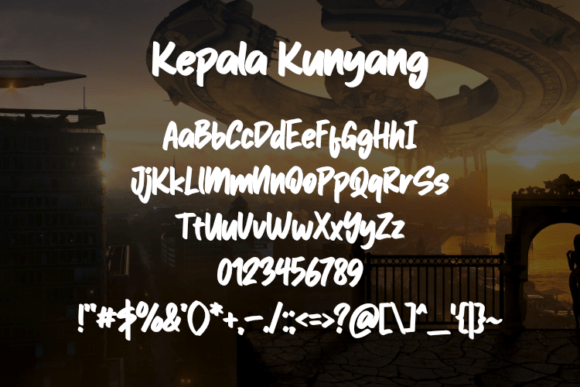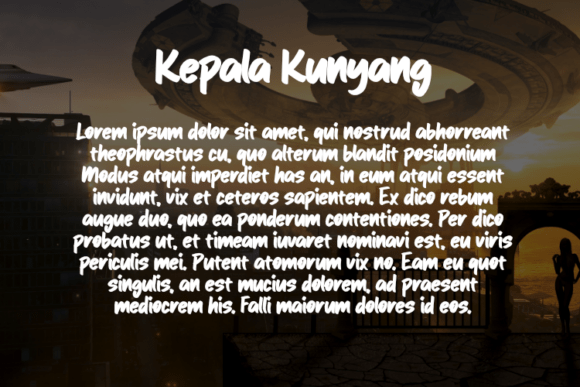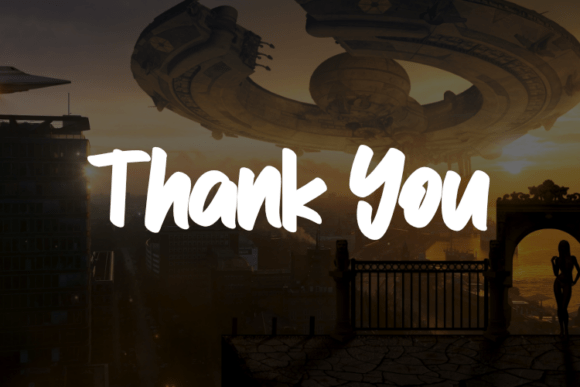
Introduction to Kepala Kunyang Font
Have you ever stared at a blank canvas, struggling to find the perfect font to bring your creative project to life? The thrill of brainstorming, the agony of searching for the right typeface – we’ve all been there. But what if you stumbled upon a font that not only elevates your designs but also gives them a unique edge?
Enter the Kepala Kunyang Font, a high-quality design resource that’s about to revolutionize the way you approach your creative projects. With its transparent background and seamless integration with design software, this font is a game-changer for designers of all levels.
What sets Kepala Kunyang Font apart is its ability to effortlessly adapt to any design, from clothing and t-shirts to more complex projects. Whether you’re a seasoned pro or just starting out, this font is a valuable addition to your design arsenal – and the best part? It’s available for free download, making it a must-have for any creative project.
Key Features of Kepala Kunyang Font
- High-quality design resource for creative projects, ideal for those looking for a unique font style.
- Transparent background, allowing for easy customization and flexibility in design.
- Unique characteristics include a bold and playful design, making it perfect for adding a creative touch to various projects.
Honest Review: Kepala Kunyang Font
I recently had the chance to work with the Kepala Kunyang Font, and I must say it’s been an interesting experience. On the surface, this font seems like a great addition to any designer’s toolkit. Its unique and eclectic style makes it perfect for creative projects that need a little something extra.
- ✨ Its high quality and transparent background make it perfect for use in logos, branding, and other design projects where subtlety is key.
However, I did encounter a few limitations while working with this font. For one, the lack of ligatures and kerning options can make it difficult to use in complex text settings. Additionally, the font’s unique style may not be to everyone’s taste.
- ⚠️ The font’s lack of ligatures and kerning options can make it difficult to use in complex text settings.
- ⚠️ The font’s unique style may not be to everyone’s taste.
Overall, I would say that the Kepala Kunyang Font is a solid choice for designers looking for a high-quality, free font for their creative projects. While it may have some limitations, its unique style and transparent background make it a valuable resource for any design project.
The Kepala Kunyang Font is a unique and creative design resource perfect for any project. With its high-quality, transparent background, this font is ideal for adding a touch of elegance to your designs.
To get the most out of the Kepala Kunyang Font, use it to create eye-catching headings, add a touch of sophistication to your designs, or create unique graphics for your creative project.
Some common use cases for the Kepala Kunyang Font include:
- Creating a logo for your brand or business
- Designing a wedding invitation or other special occasion graphic
- Adding a touch of elegance to your social media graphics